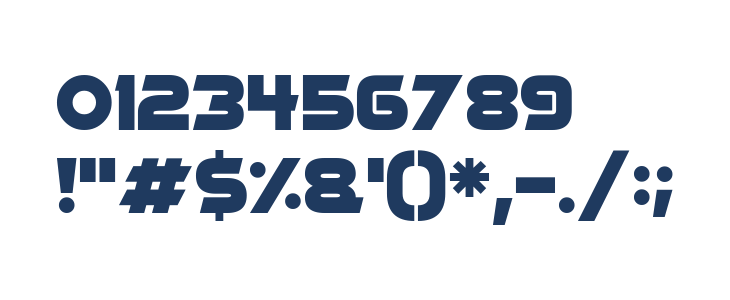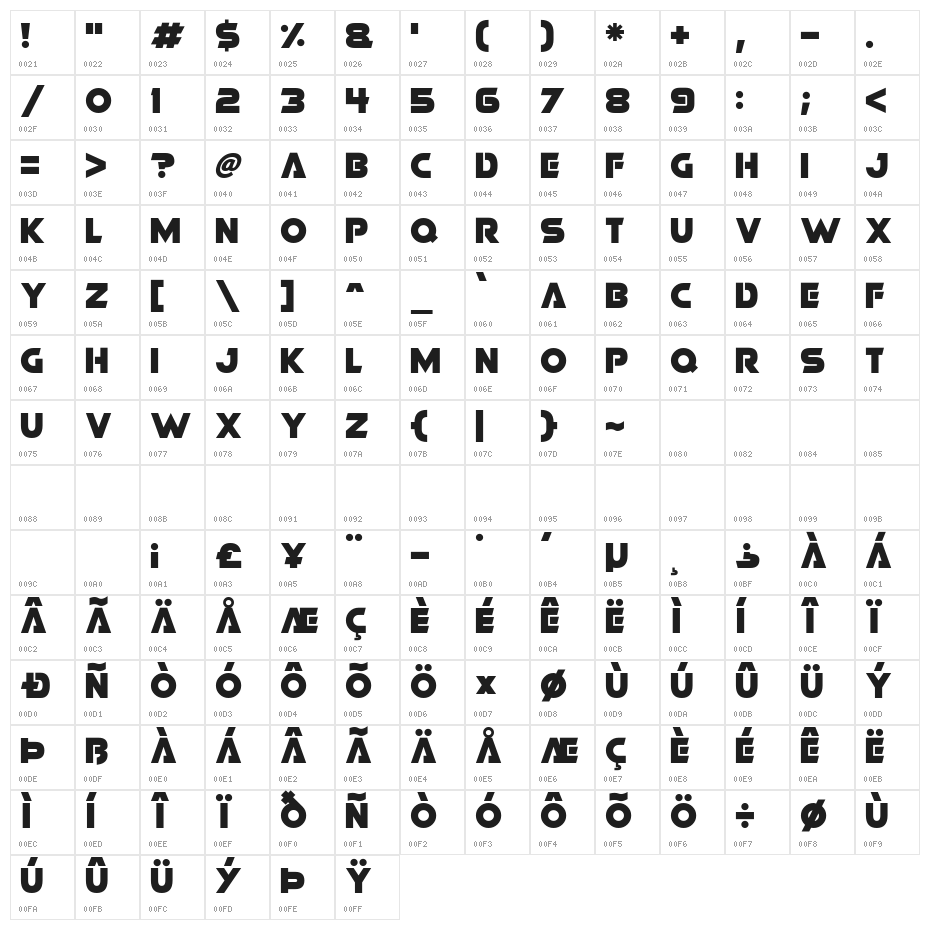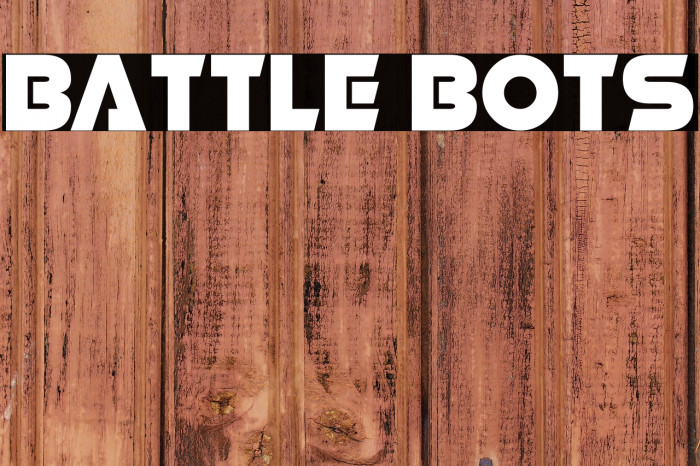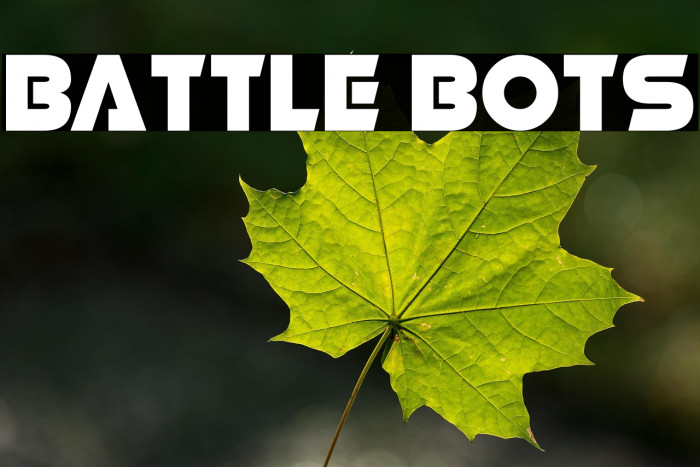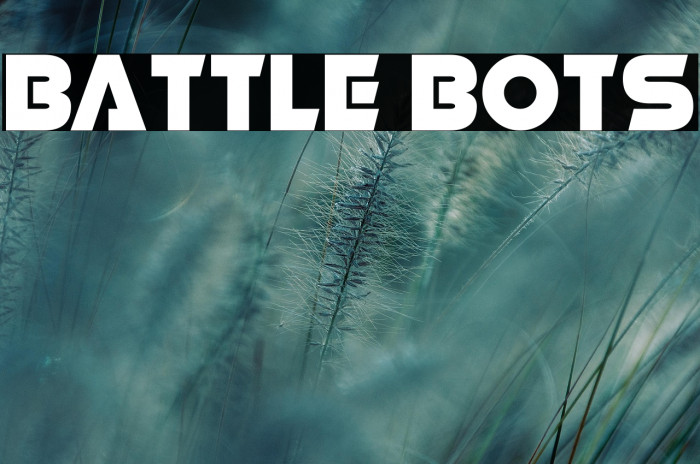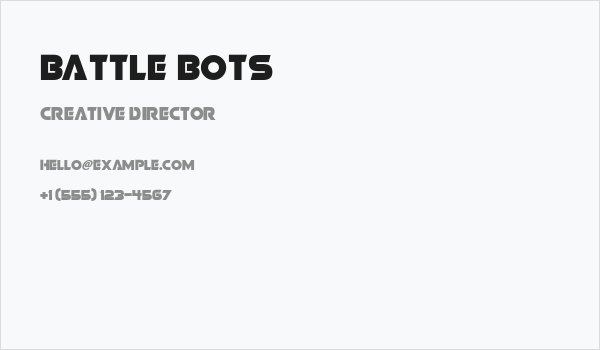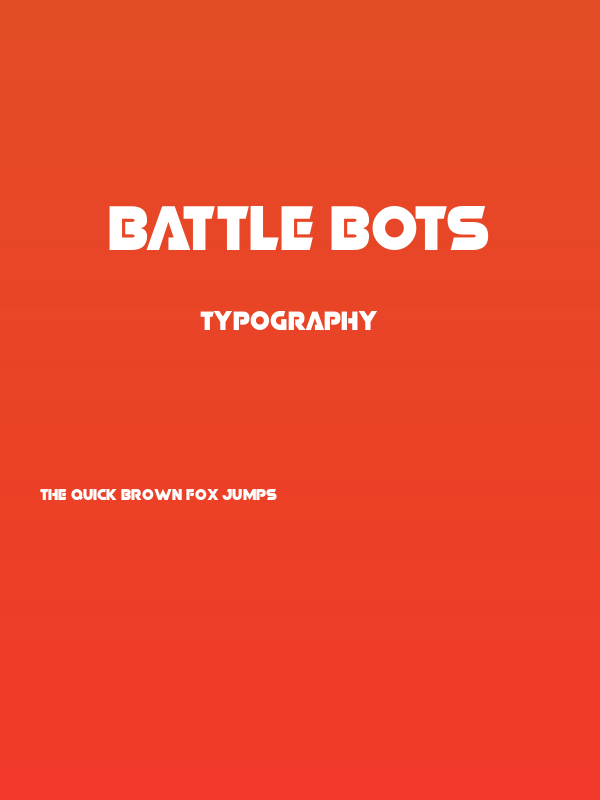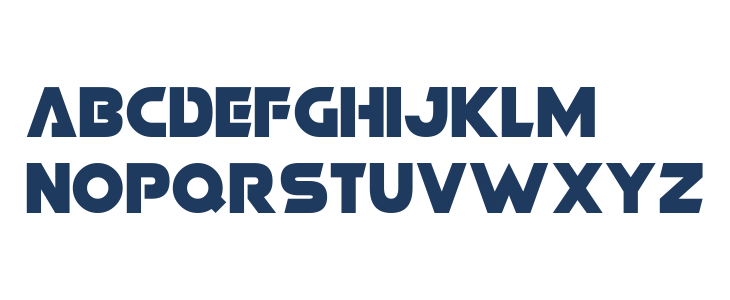
Battle Bots Font
Battle Bots Description
This font features a bold and futuristic design with strong geometric shapes and sharp angles. The uppercase letters are particularly striking, with a blocky appearance that conveys strength and modernity. The lowercase letters maintain the same boldness, ensuring consistency throughout the typeface. Numbers are equally robust, making them ideal for impactful displays. The special characters are designed to match the overall aesthetic, providing a cohesive look. This font is perfect for projects that require a modern, tech-inspired feel, such as video game titles, tech branding, or sci-fi movie posters.
| Proposed Projects | Ideal for video game titles, tech branding, sci-fi movie posters, and modern advertising. |